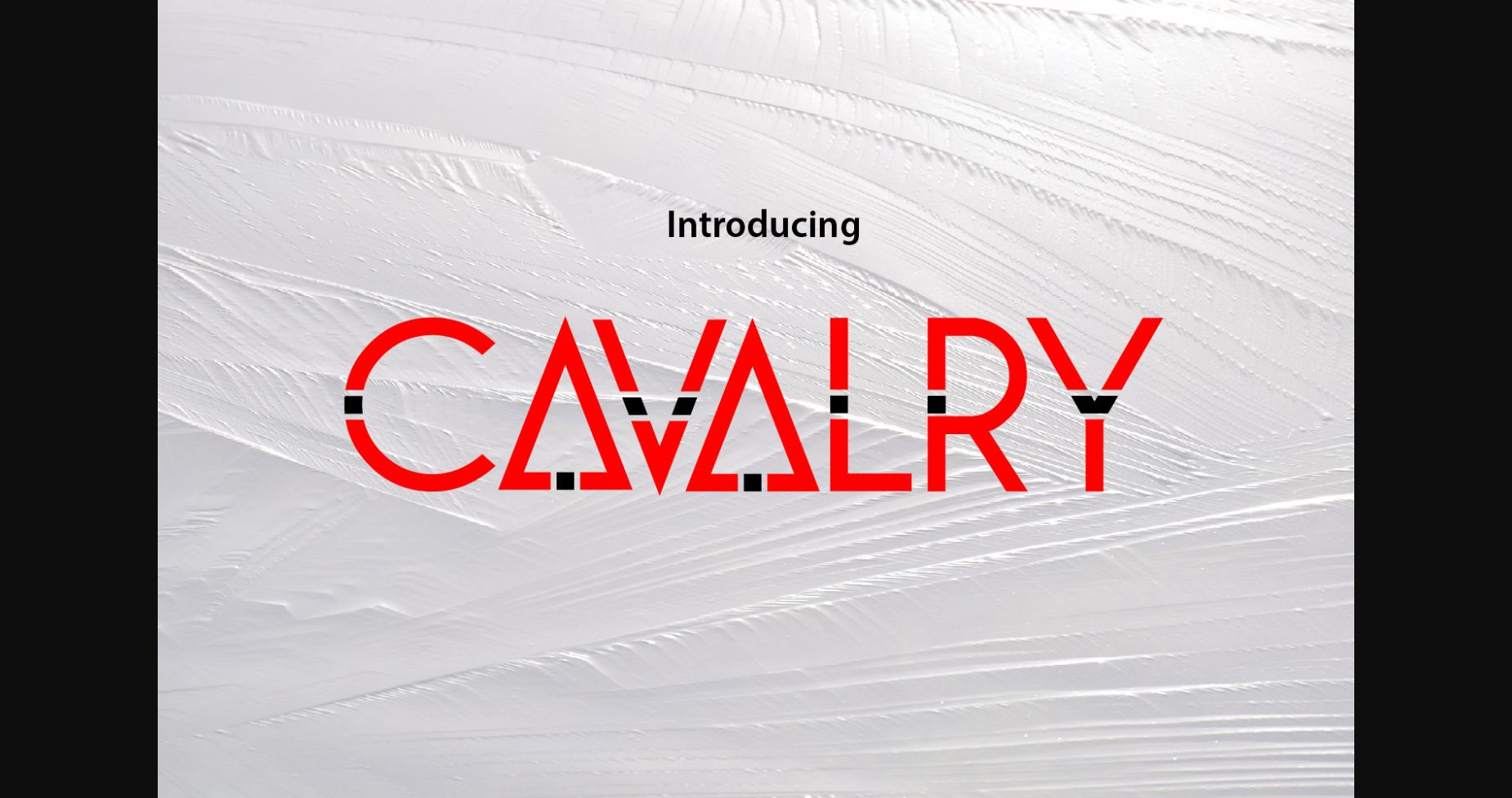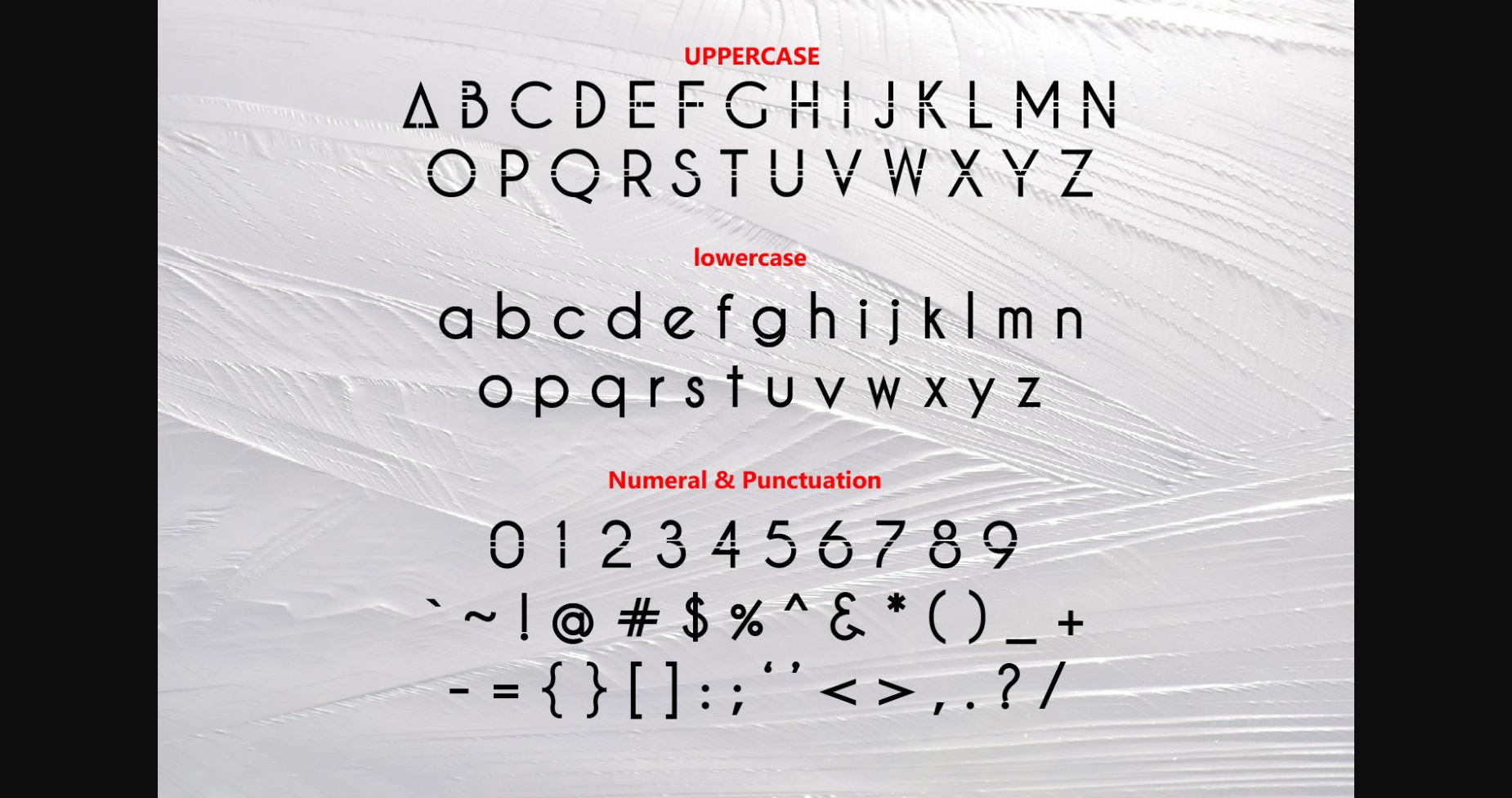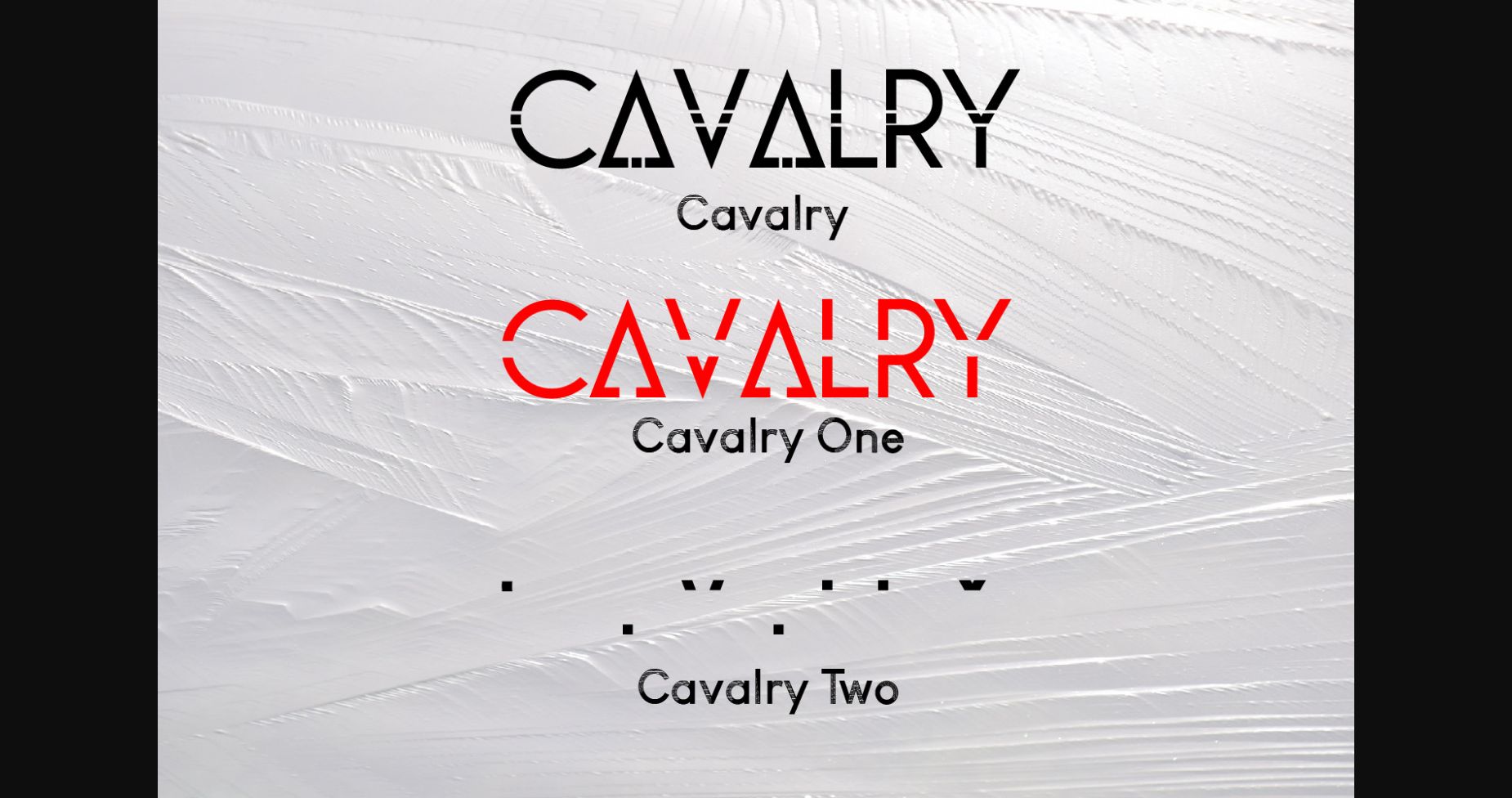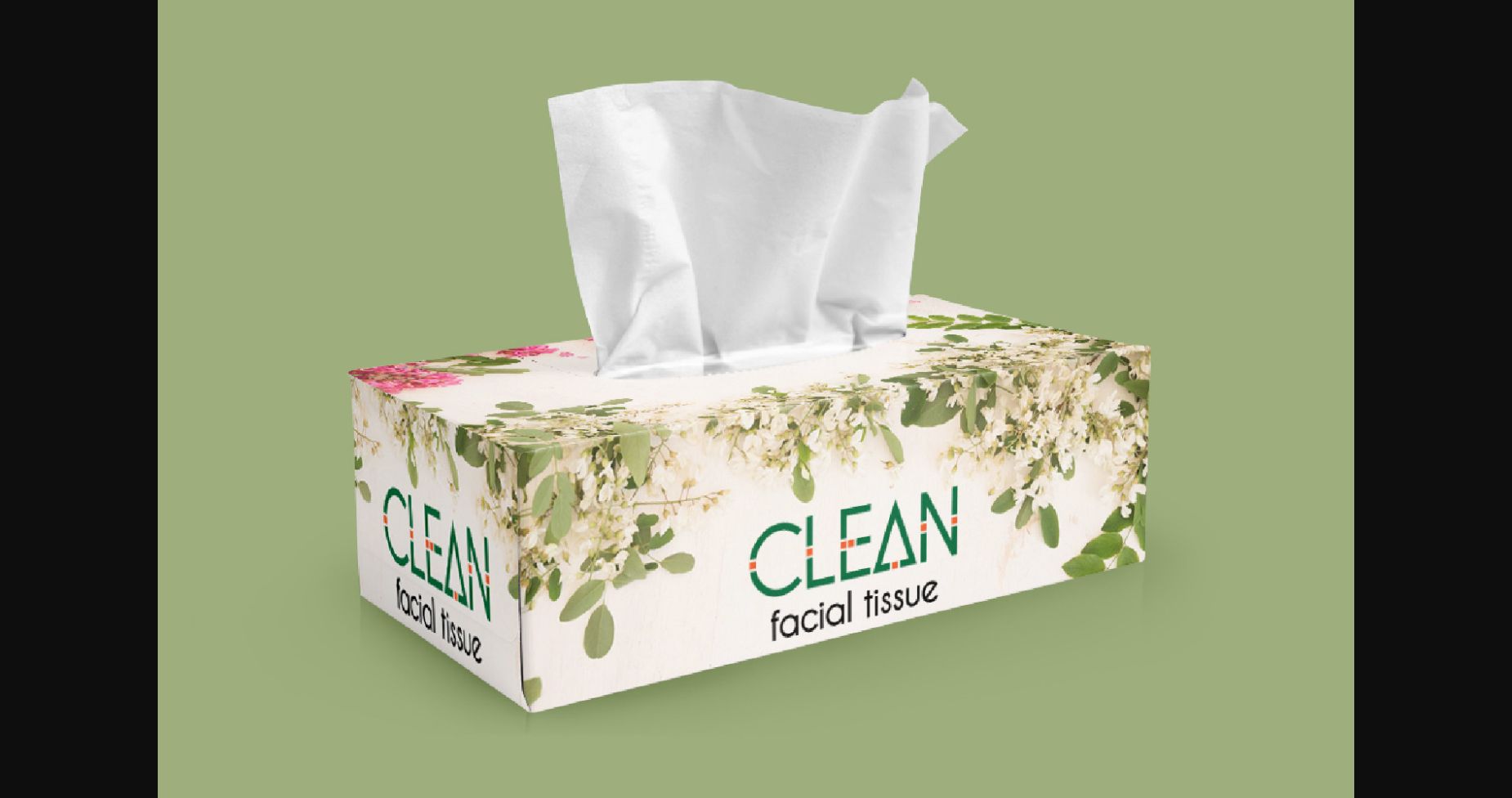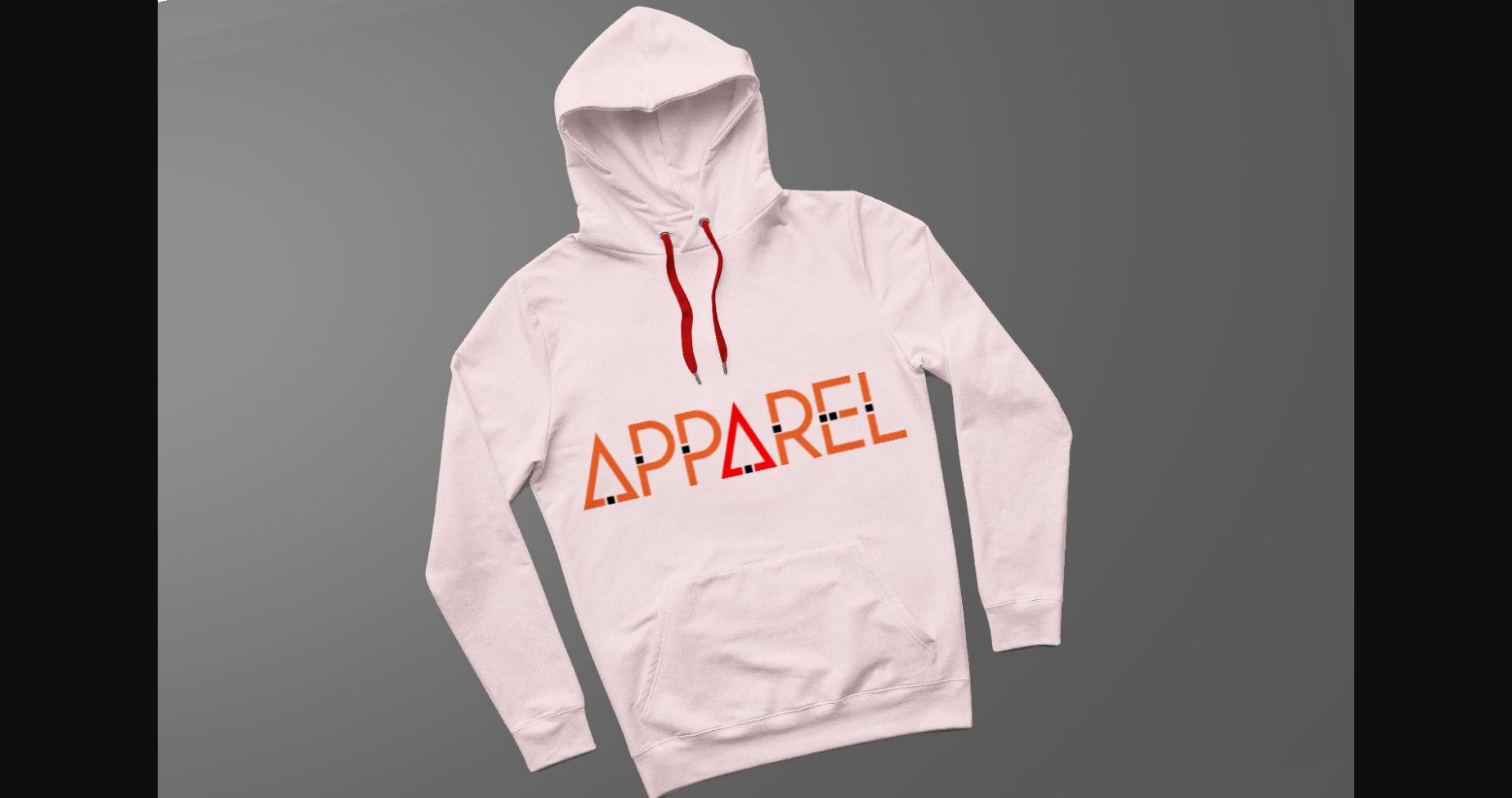
Cavalry is a stunningly modern and charming sans serif font. It was created with a layered concept, simple, unique, elegant. This font family is enough to obtain maximum results!